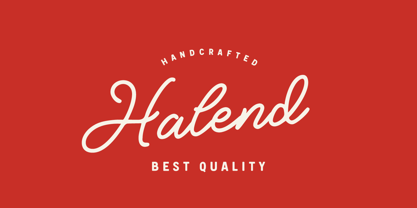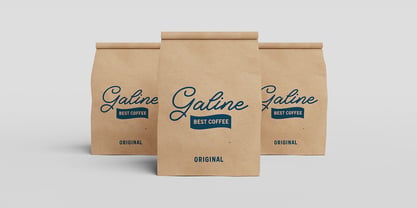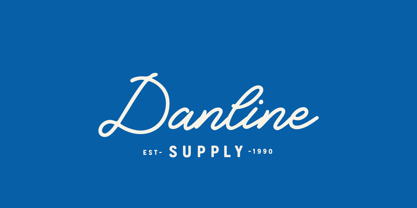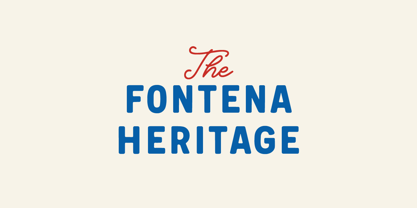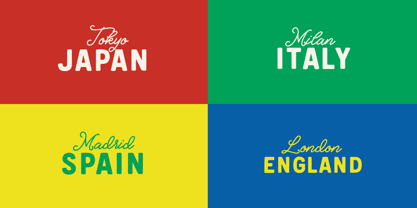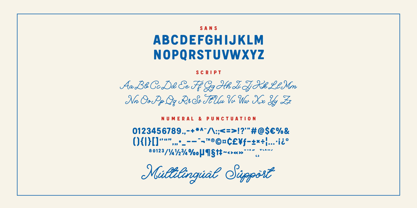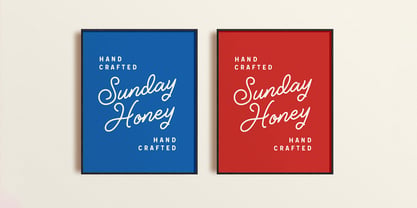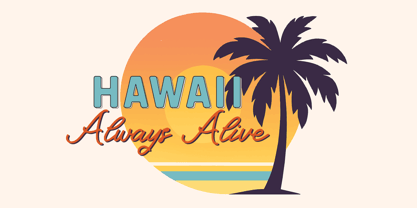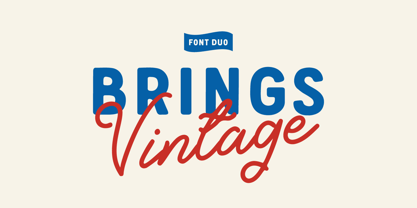
Brings Vintage
by Typebae
Meet Brings Vintage, a playful and stylish font duo that combines bold retro sans with smooth handwritten script. Designed to bring a nostalgic yet modern touch, this typeface is perfect for logos, branding, packaging, social media, and all your vintage-inspired projects. Features: Uppercase, Lowercase, Numeral & Punctuation PUA Encoded & Multilingual Support